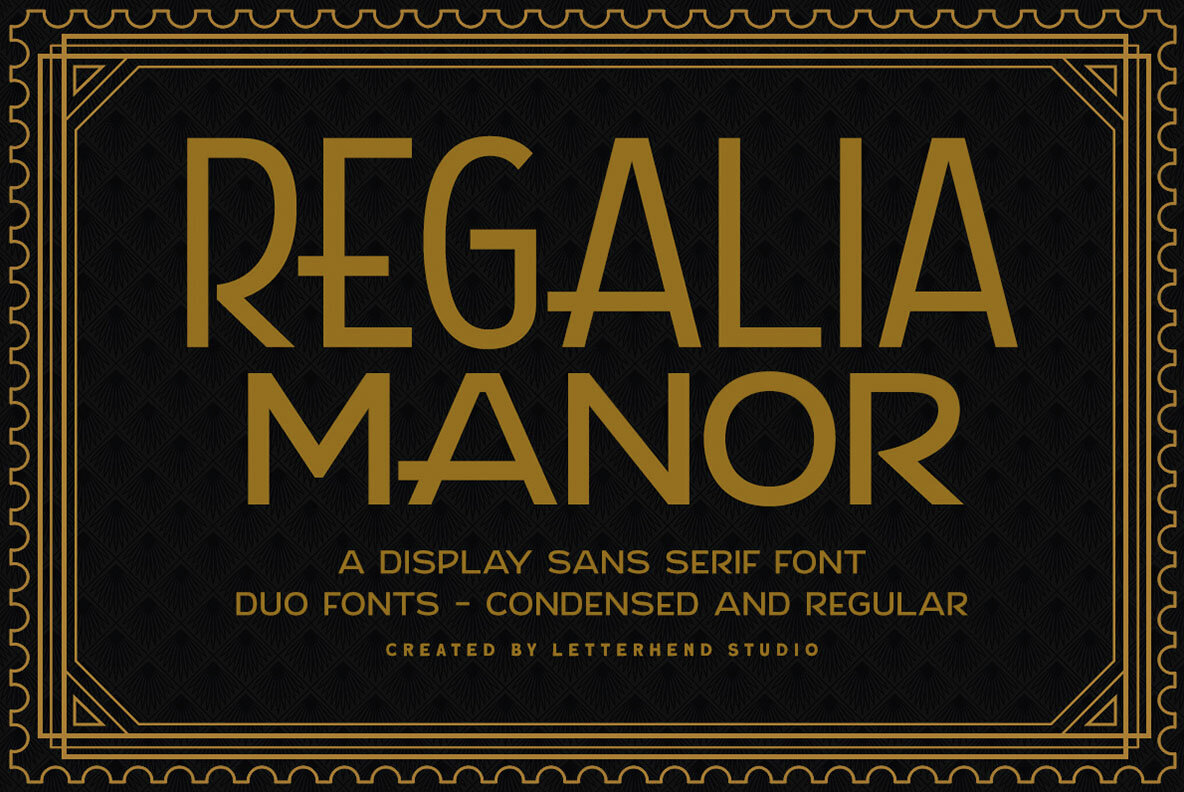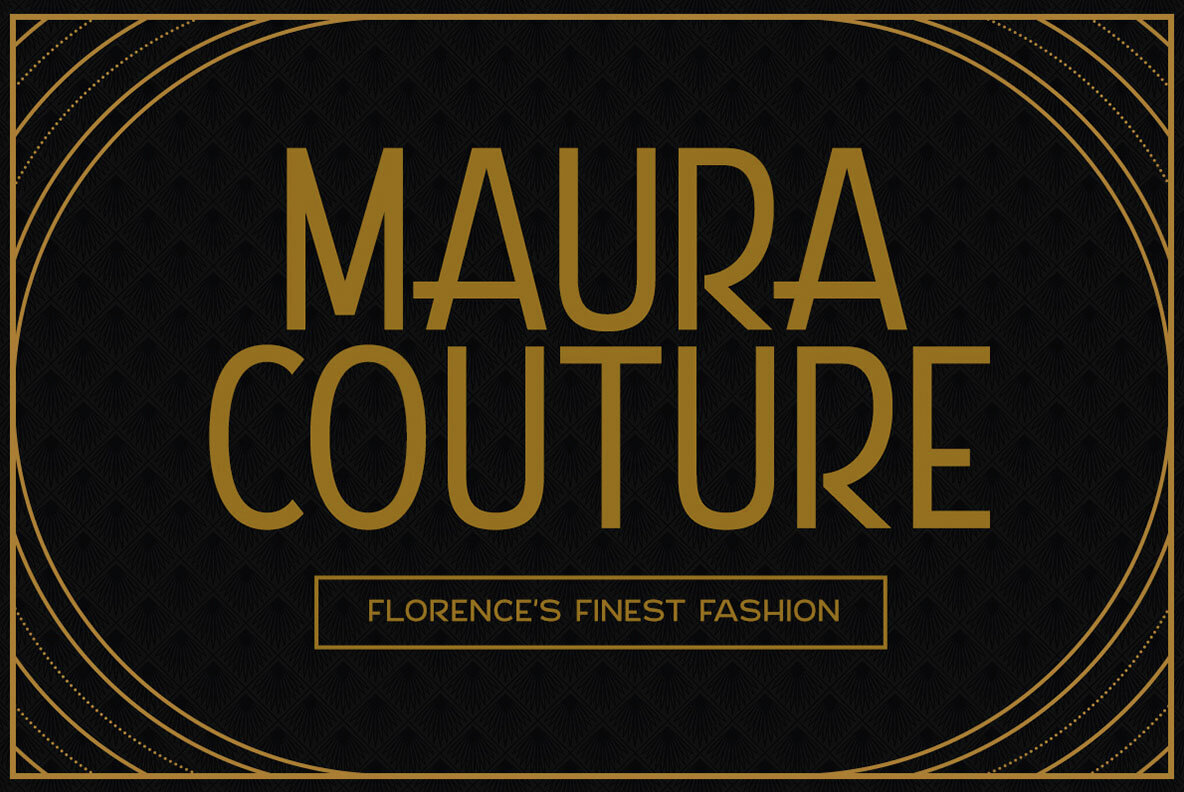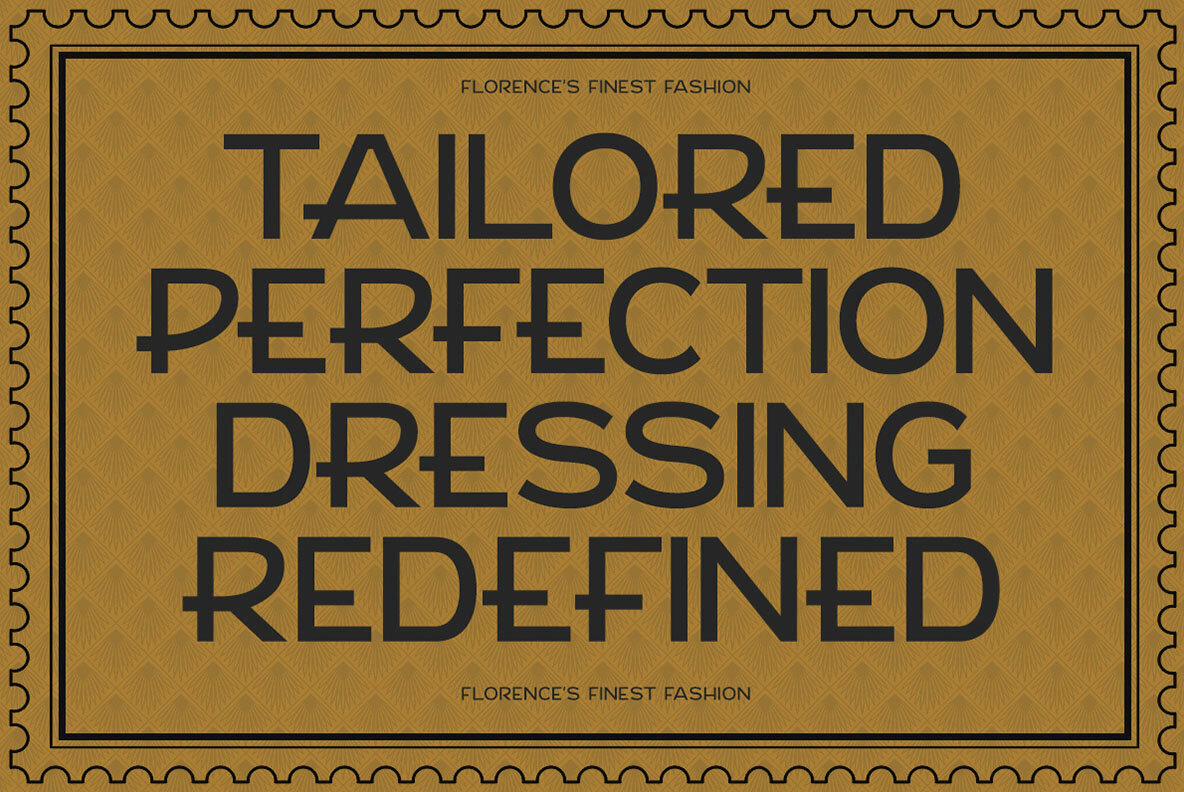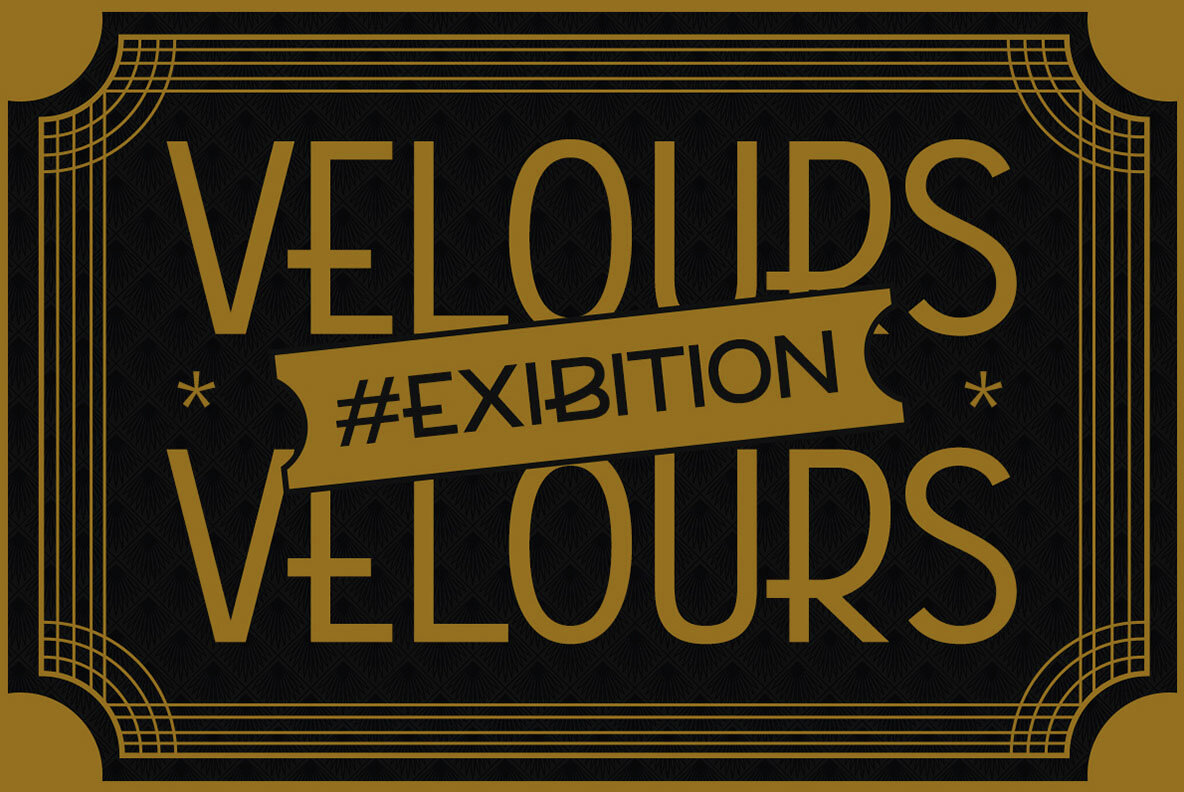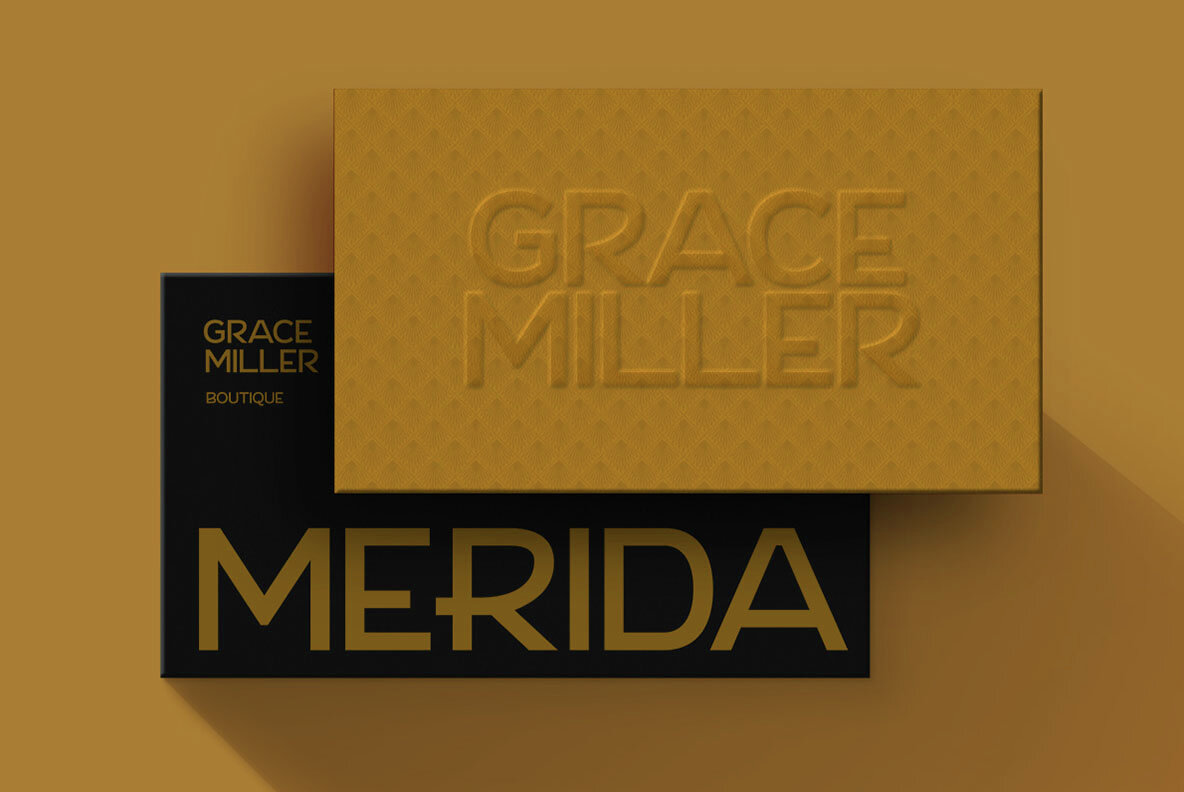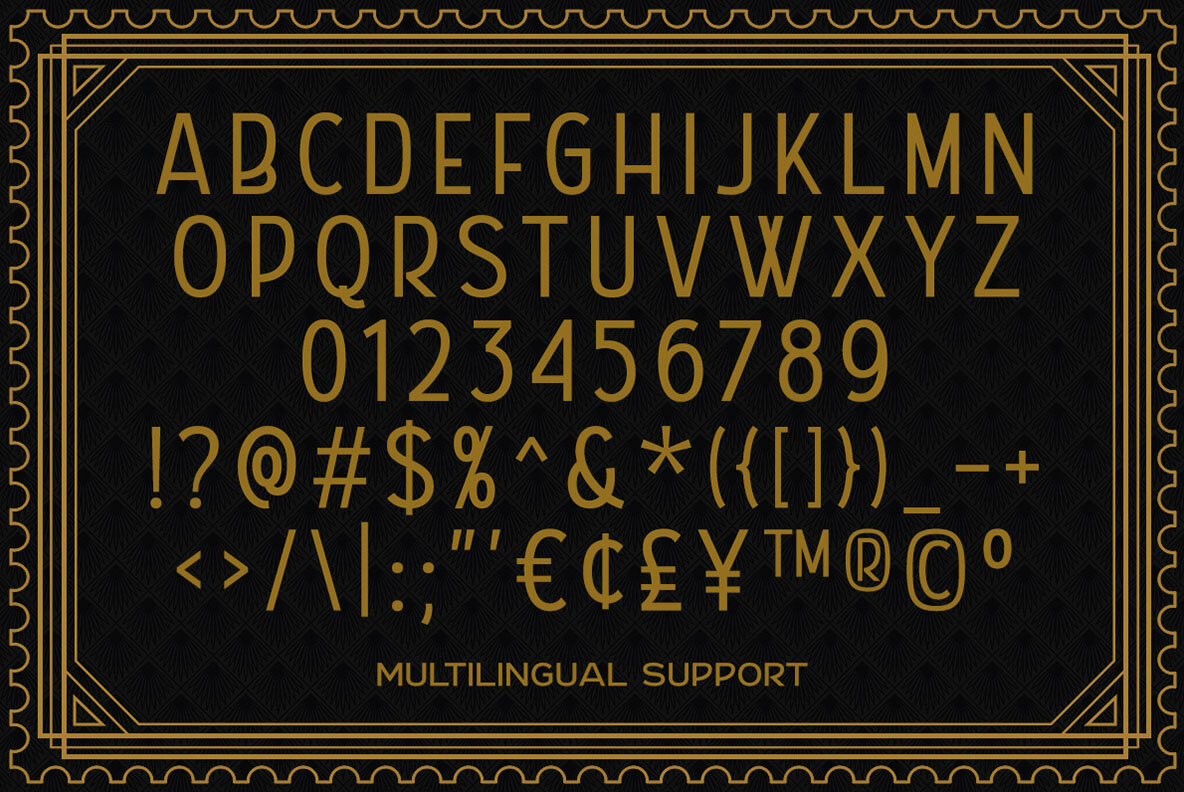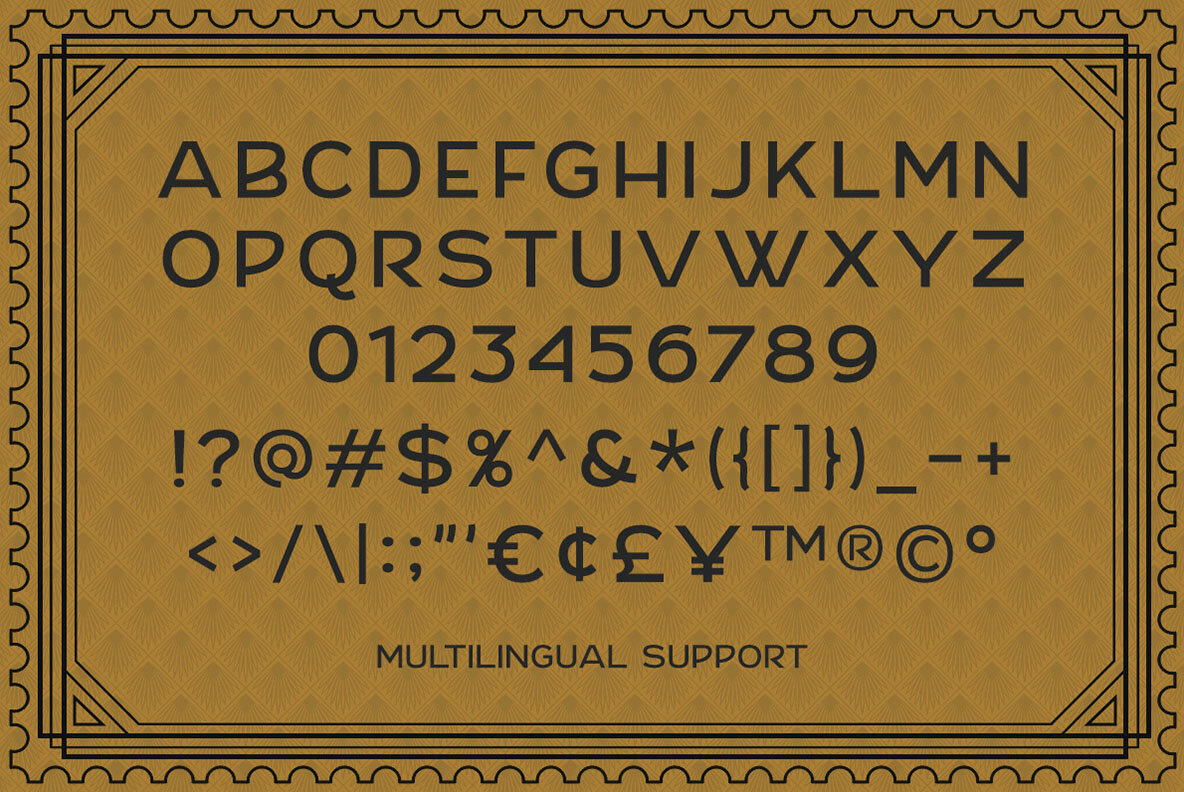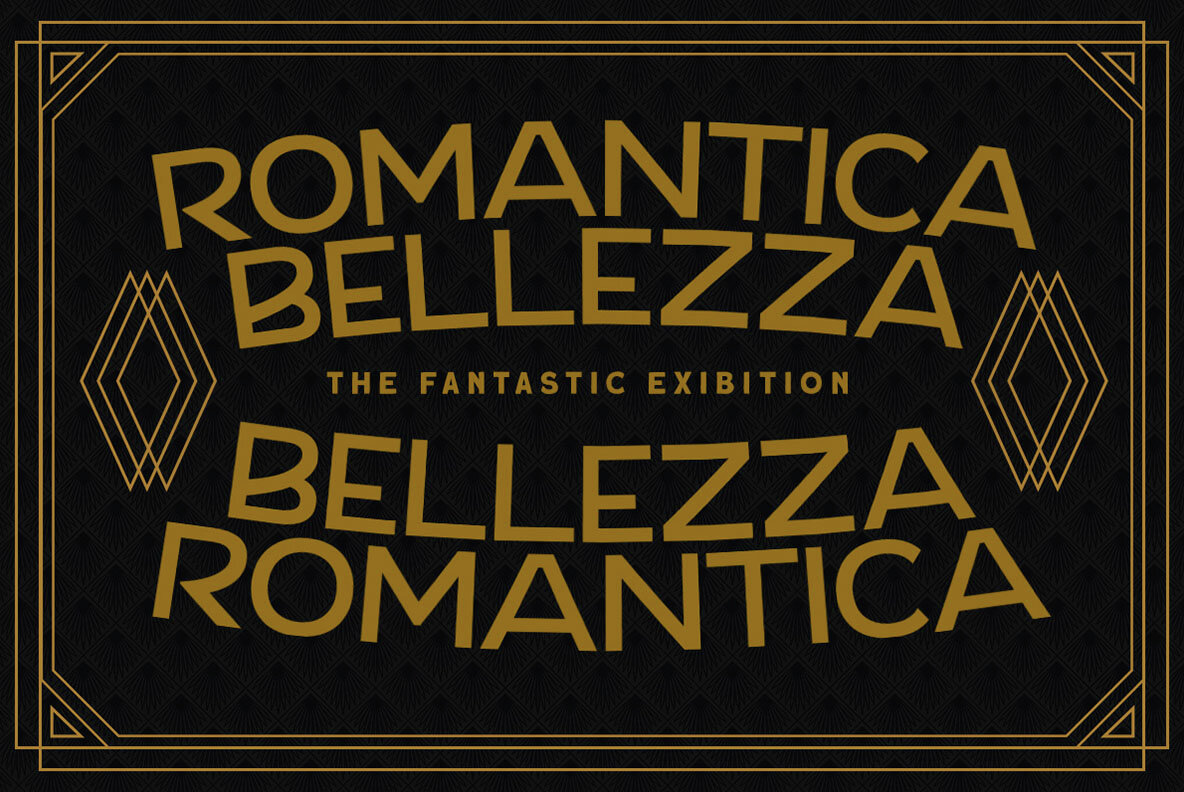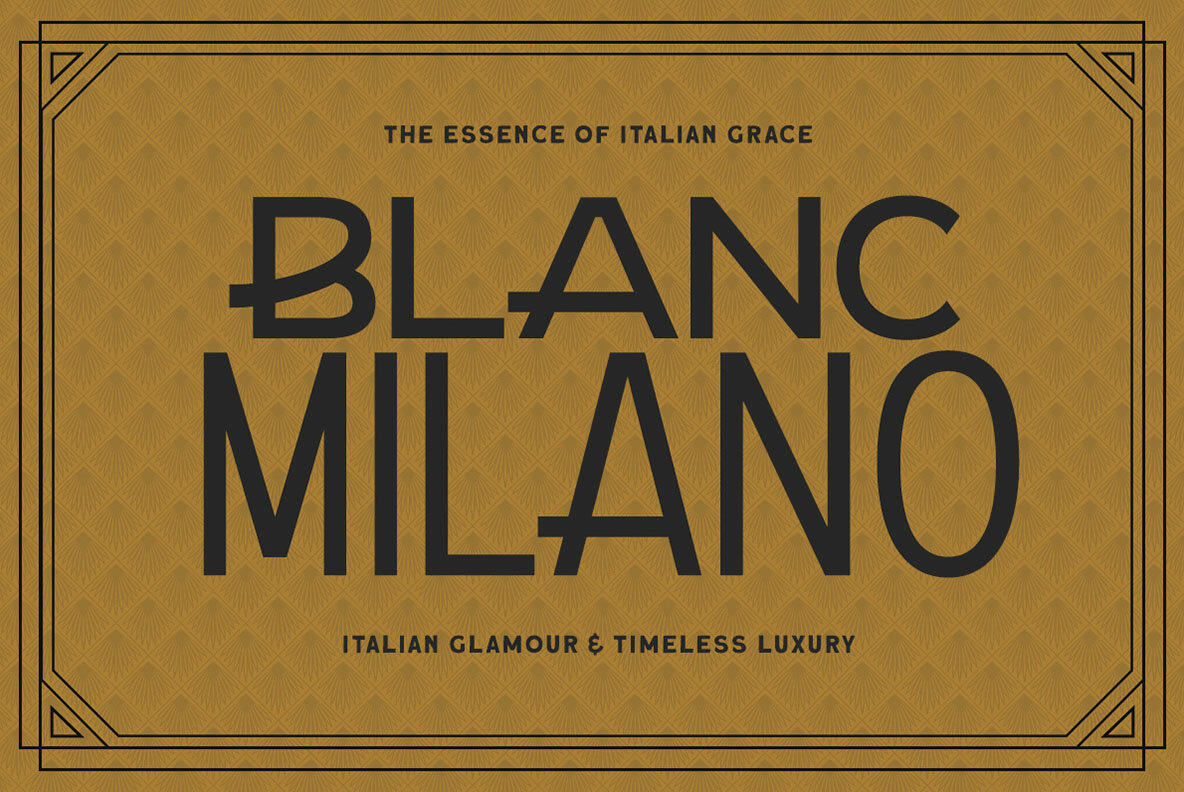
Regalia Manor Font
Regalia Manor is a luxurious display sans-serif font duo, featuring both condensed and regular styles. With its elegant, geometric design and a touch of art deco influence, this font exudes sophistication and class, making it perfect for branding, high-end packaging, invitations, signage, and editorial design. The clean lines and refined structure create a bold yet timeless aesthetic, ideal for projects that demand a premium, upscale feel. Features: We highly recommend using a program that supports OpenType features and Glyphs panels like many of Adobe apps and Corel Draw, so you can see and access all Glyph variations.